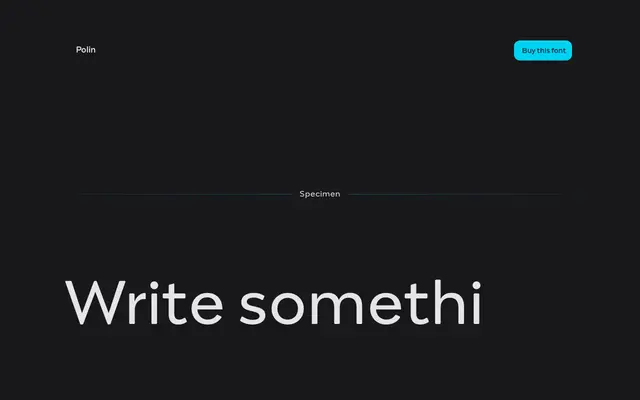
Polin
Capitalics · Mateusz Machalski, Ben Nathan
A geometric sans family by Mateusz Machalski and Ben Nathan, rooted in Polish modernist letterform research and extended across Latin, Cyrillic, Hebrew, Greek and Vietnamese scripts.
Inspired by Władysław Strzemiński's Alphabet a.r. and pre-war Warsaw's multiscript typographic culture, Polin draws on circular geometric forms adapted sensitively for each script it covers. The Hebrew was led by Ben Nathan, informed by the Idźkowski & Sk-a foundry's Jaffa typeface, while the Cyrillic takes its cues from open-form Bulgarian variants applied to classical letterforms. Twenty styles run from Hairline to Black with matching italics, making this as much a historical document as a working type family.
Polin is a geometric sans rooted in Polish modernist letterform research, specifically the Alphabet a.r. by Władysław Strzemiński, with circular geometric forms applied consistently across Latin, Cyrillic, Hebrew and Greek scripts.